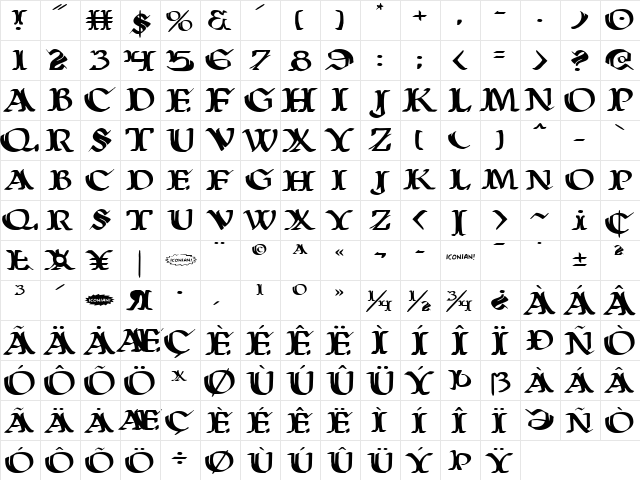
Wars of Asgard Expanded Font Preview
Wars of Asgard Expanded
Wars of Asgard Expanded Font Details
Design Context for Wars of Asgard Expanded Typeface
Wars of Asgard Expanded is a composed and adaptable typeface that performs quietly and consistently across a wide range of design contexts.